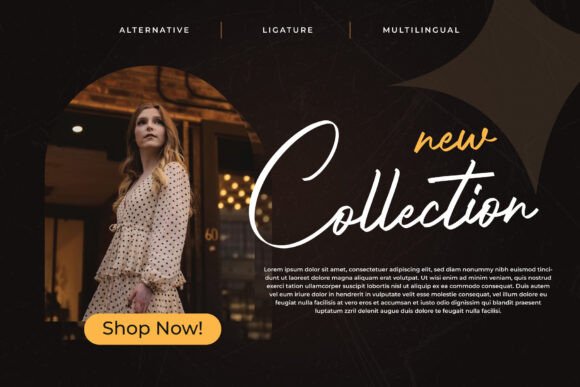
The Elegance of Avalline Font: A Designer’s New Best Friend
I’ll never forget the time I was working on a wedding invitation project, and my client asked for a font that was ” elegant, yet playful, and not too over-the-top.” I scoured the internet, tried out dozens of fonts, but nothing seemed quite right. That was until I stumbled upon Avalline Font. With its smooth, flowing strokes and authentic hand-drawn texture, it was love at first sight! ✨ In this article, I’ll share my experience with Avalline, its features, and how to make the most of it in your designs.
Avalline Font: A Personal Review
- ✨ Elegant and sophisticated, perfect for high-end designs
- ✅ Smooth, flowing strokes that give it a personal touch
- 💫 Authentic hand-drawn texture that adds warmth to any design
- 🎨 Highly versatile, suitable for various design projects, from wedding invitations to logos and social media graphics
While Avalline is an amazing font, there are a few things to keep in mind: 🤔
- ⚠️ Some characters may not work well in very small sizes, so it’s best to use it at larger sizes (14pt or higher)
- ⚠️ Limited availability of stylistic alternates, but what it has is still very useful
A Practical Guide to Using Avalline Font
The Story Behind Avalline Font
Avalline was designed by a talented typographer who wanted to create a font that exuded elegance and charm. Inspired by traditional calligraphy and handwriting, Avalline was crafted to bring a personal touch to digital designs. With its smooth strokes and authentic texture, Avalline has become a favorite among designers and crafters alike.
Q: Is Avalline Font suitable for body text?
A: While Avalline is a beautiful font, it’s best suited for headlines, titles, or emphasis text. For body text, you may want to choose a font with better readability.